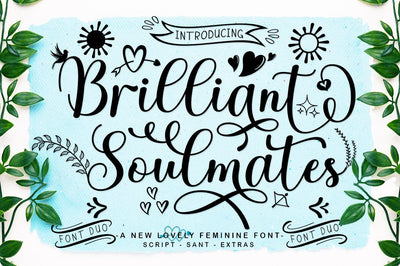
Brilliant Soulmates Font Duo Plus Extras
Brilliant Soulmates Font Duo Plus Extras is a new modern script font with an irregular baseline. Stylish and feminine. Sweet Love looks beautiful on wedding invitations, thank you cards, quotes, greeting cards, logos, business cards and many more. Perfect for use in ink or watercolor. Includes initial and terminal letters, alternatives, ligatures, and multiple language support.